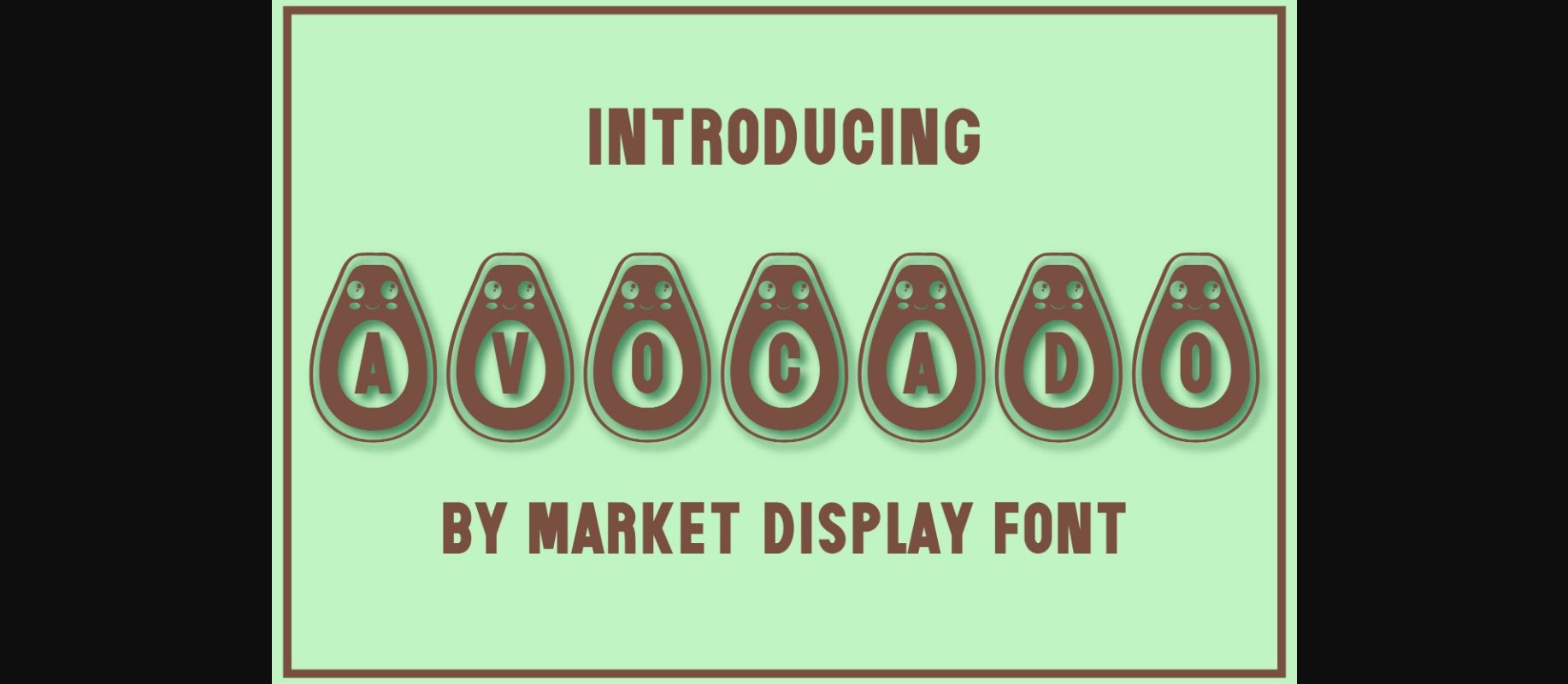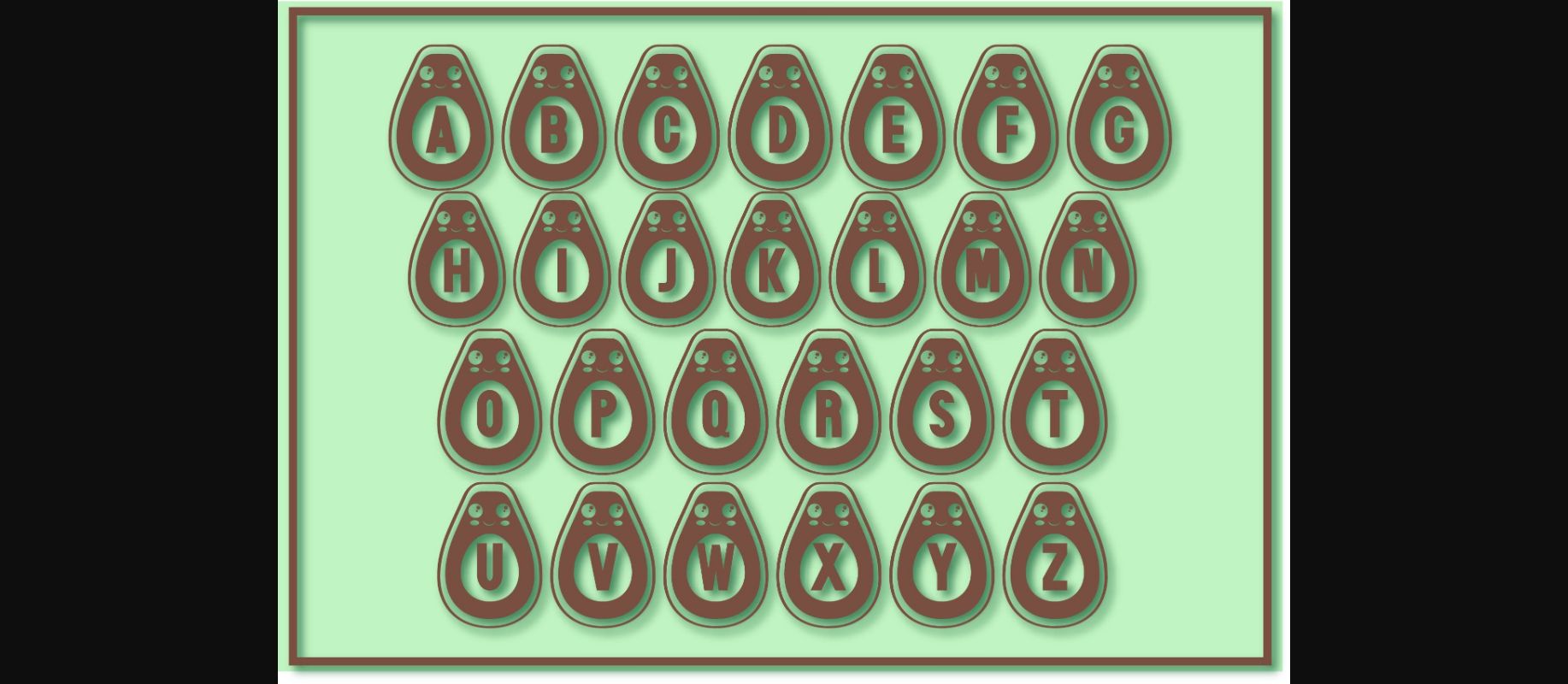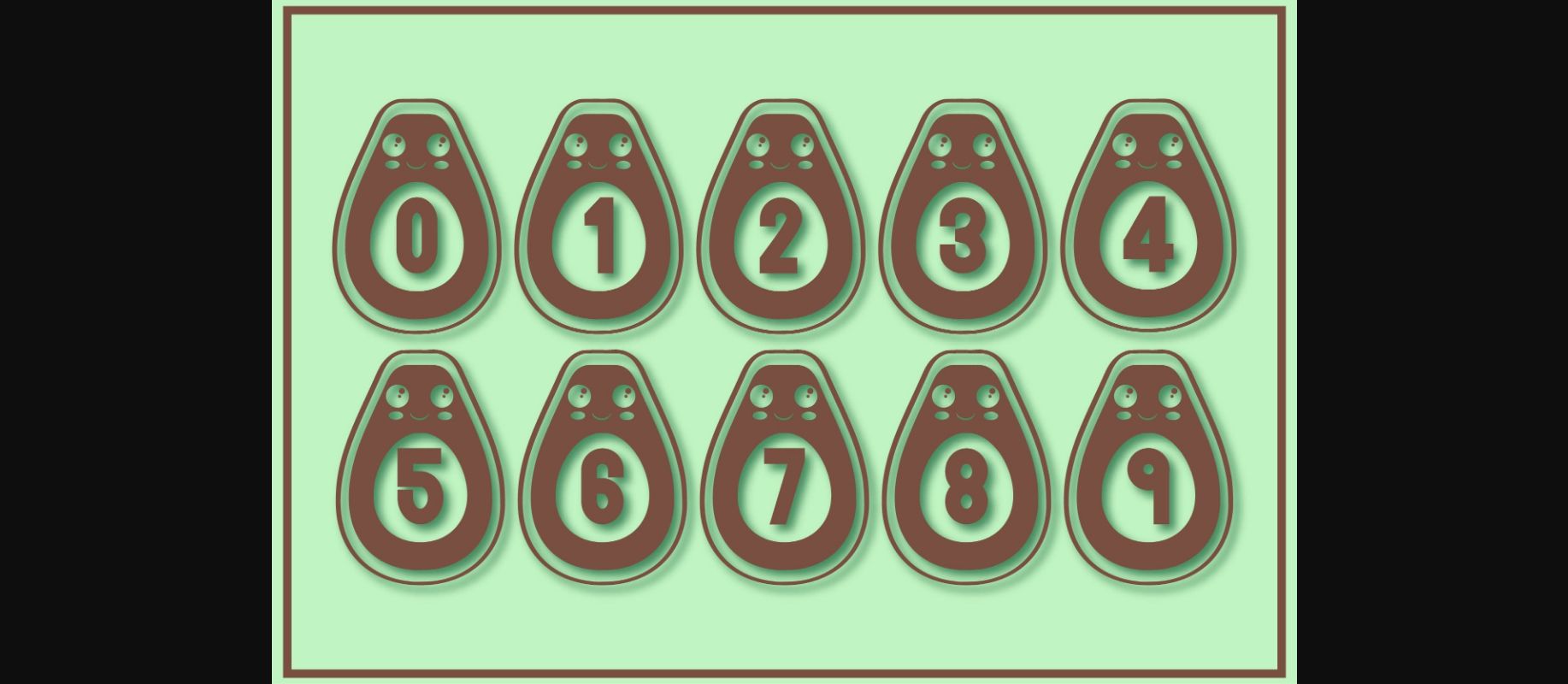
About Avocado Font
Avocado is a playful decorative font with avocados. With this font, your messages will become really super cute. This font is perfect for posters, greeting cards, t-shirts, branding materials, quotes, and any other amazing projects you are working on.